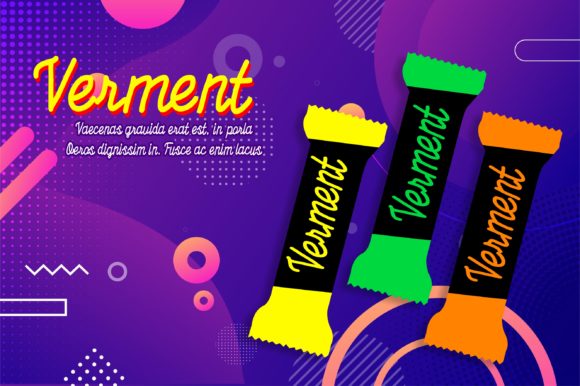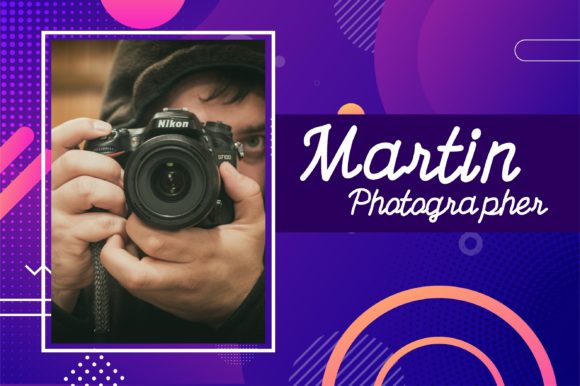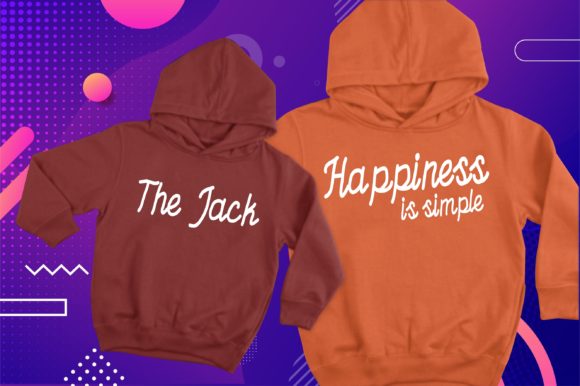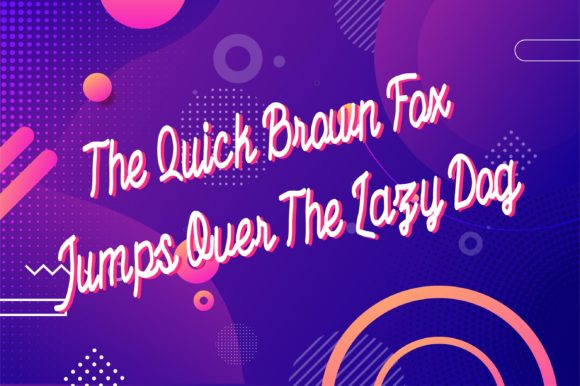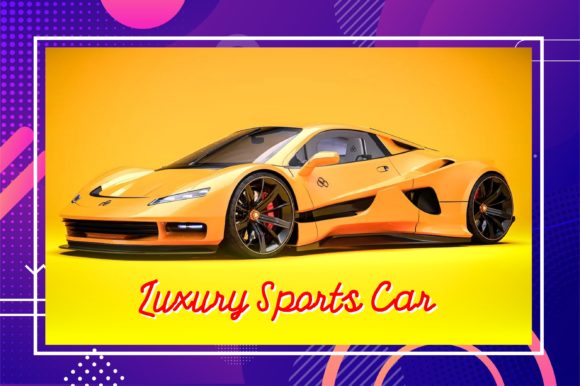
Introducing Fresh Happy Font: The Perfect Addition to Your Design Projects
Are you tired of using the same old fonts in your design projects? Do you want to add a touch of joy and romance to your creations? Look no further than Fresh Happy Font, a beautiful natural and cursive handwritten font that’s perfect for a variety of design ideas. In this article, we’ll take a closer look at Fresh Happy Font and explore how it can elevate your designs to the next level.
What is Fresh Happy Font?
Fresh Happy Font is a gorgeous, cursive handwritten font that’s designed to bring a sense of joy and happiness to your design projects. With its gentle, flowing strokes, this font is perfect for creating beautiful and eye-catching designs that capture the essence of your brand or message. Whether you’re a designer, crafter, or DIY enthusiast, Fresh Happy Font is a versatile and easy-to-use font that will add a touch of elegance and sophistication to your work.
Key Features of Fresh Happy Font
So, what makes Fresh Happy Font so special? Here are just a few of its key features:
- Natural and Cursive Handwritten Style: Fresh Happy Font features a beautiful, natural handwritten style that’s perfect for creating designs that feel personal and authentic.
- Versatile and Easy to Use: This font is incredibly versatile and easy to use, making it perfect for a wide range of design projects, from invitations and greeting cards to branding and packaging.
- Joysful and Romantic Touch: Fresh Happy Font adds a joyful and romantic touch to each of your projects, making it perfect for designs that require a personal and emotional connection.
Design Ideas Using Fresh Happy Font
So, how can you use Fresh Happy Font in your design projects? Here are just a few ideas to get you started:
- Wedding Invitations and Stationery: Fresh Happy Font is perfect for creating beautiful wedding invitations, stationery, and other wedding-related designs that require a romantic and elegant touch.
- Greeting Cards and Gift Tags: Add a personal touch to your greeting cards and gift tags with Fresh Happy Font, which is perfect for creating beautiful and heartfelt messages.
- Branding and Packaging: Use Fresh Happy Font to create beautiful and eye-catching branding and packaging designs that capture the essence of your brand and products.
- DIY Crafts and Scrapbooking: Fresh Happy Font is also perfect for DIY crafts and scrapbooking projects, where you can use it to add a personal and creative touch to your designs.
Why Choose Fresh Happy Font?
So, why should you choose Fresh Happy Font for your design projects? Here are just a few reasons:
- Unique and Eye-Catching Designs: Fresh Happy Font allows you to create unique and eye-catching designs that stand out from the crowd and capture the attention of your audience.
- Easy to Use and Customize: This font is incredibly easy to use and customize, making it perfect for designers and crafters of all skill levels.
- High-Quality and Professional Designs: With Fresh Happy Font, you can create high-quality and professional designs that reflect your brand and message.
In conclusion, Fresh Happy Font is a beautiful and versatile font that’s perfect for a wide range of design projects. With its natural and cursive handwritten style, joyful and romantic touch, and ease of use, this font is sure to become a favorite among designers and crafters. Whether you’re looking to create beautiful wedding invitations, greeting cards, branding and packaging designs, or DIY crafts and scrapbooking projects, Fresh Happy Font is the perfect addition to your design toolkit.